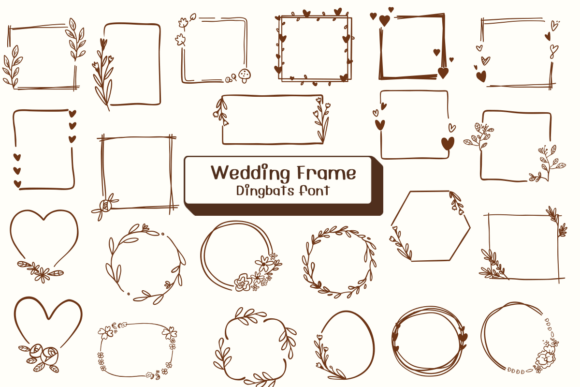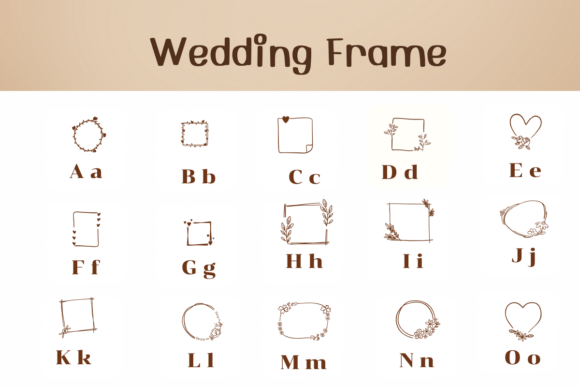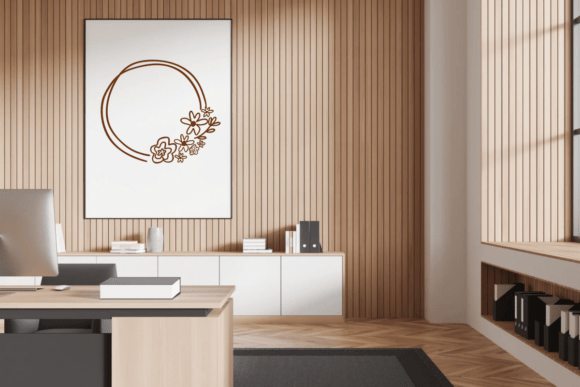
Wedding Frame Font
Wedding Frame is a charming dingbats font featuring a collection of hand-drawn floral and romantic frames. From hearts and circles to elegant geometric outlines, each frame is designed to elevate invitations, stationery, social media, and craft projects with a touch of love and elegance.